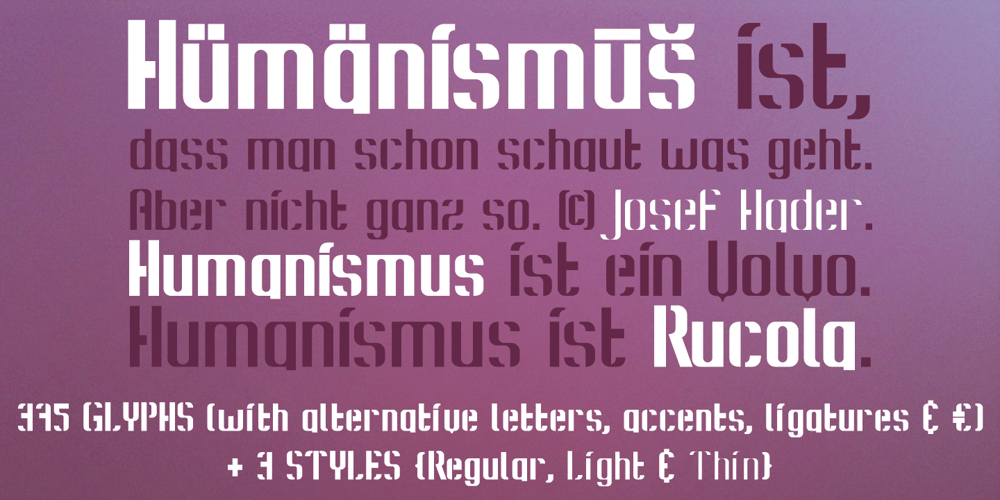
Konstructa Humana Stencil
Konstructa Humana Stencil font
Konstructa Humana Stencil Font Family was designed by Manuel Viergutz and published by TypoGraphicDesign. Konstructa Humana Stencil contains 3 styles and family package options. CONCEPT/ CHARACTERISTICS »Kon­strukta Humana Sten­cil« aka »Hot Cold« is a modern desi­gned sans serif type­face with huma­nist influ­en­ces and Sten­cil cha­rac­ter. The par­ti­ally strong line thick­ness dif­fe­rence (line con­trast) gives the font a touch of ele­gance and crea­tes ten­sion as fats. The font comes in 3 font styles. From ele­gant warm ten­der­ness »Thin« to the solid, bold, and robust­ness cold »Regular«. APPLICATION AREA The »Thin« font weight would pro­bably dig on fes­tive invi­ta­ti­ons and »Regu­lar« as con­cise pos­ter font. From head­lines in maga­zi­nes or web­sites about pos­ter design and fly­ers to t-shirt design. Just type it. TECHNICAL SPECIFICATIONS Head­line Font | Dis­play Font | Sans Serif Sten­cil Font »Kon­structa Humana Sten­cil« Open­Type Font (Mac + Win) with 375 gly­phs & 3 styles (regu­lar, light, thin). With alter­na­tive let­ters, liga­tures, accents & €.